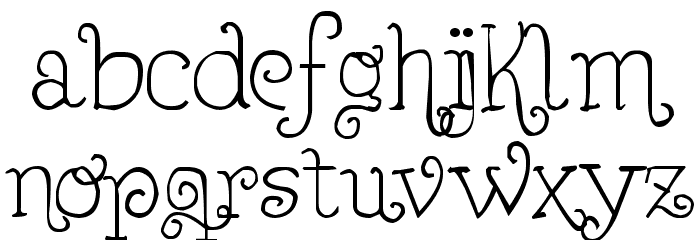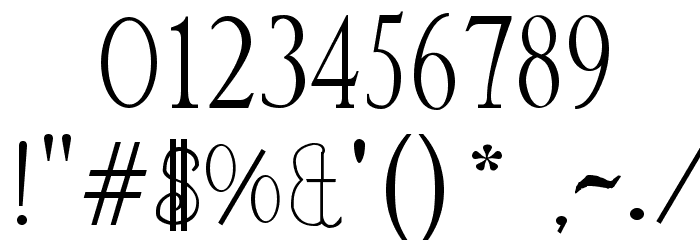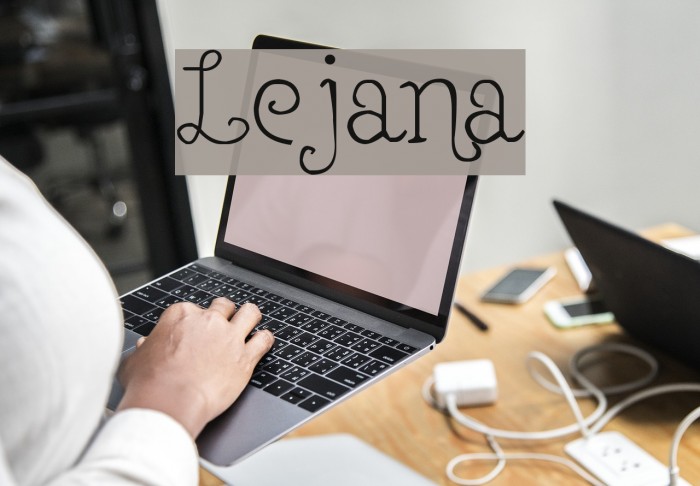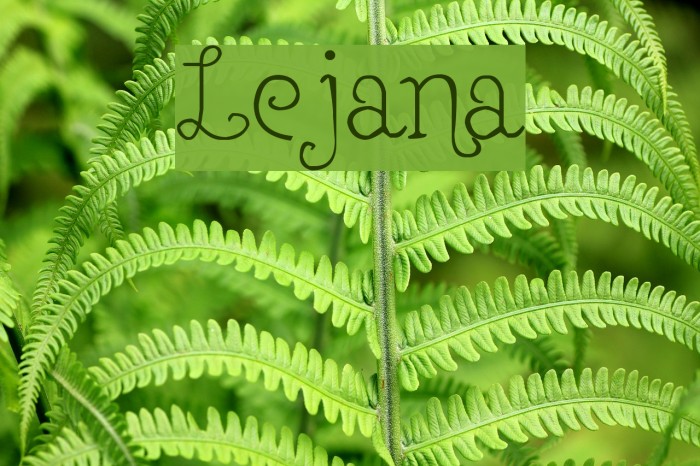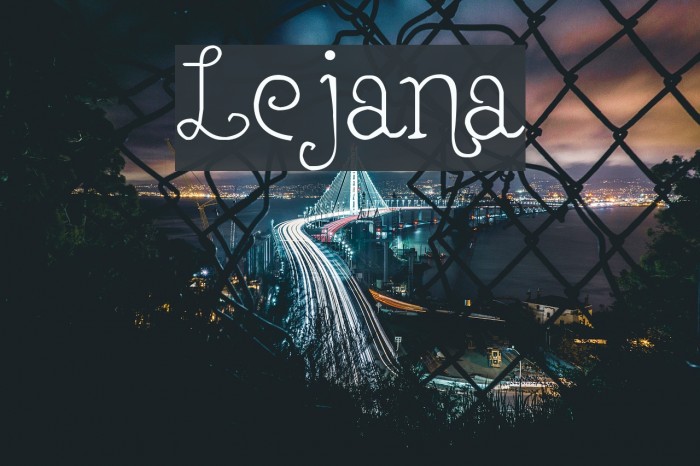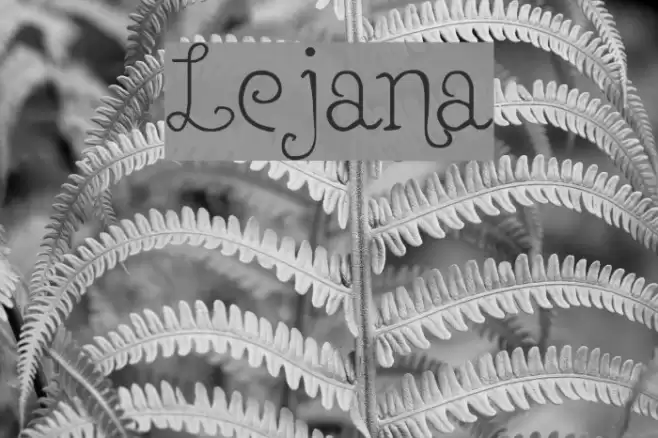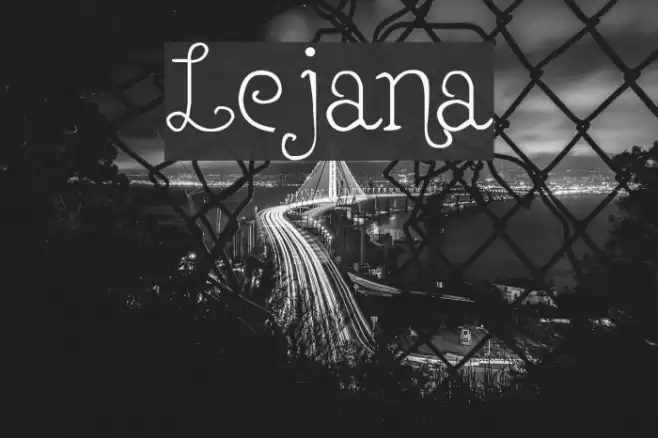
Lejana Font
This font features an elegant and whimsical design, characterized by its playful curls and swirls at the ends of the strokes. The uppercase letters exhibit a unique blend of classic serif elements with decorative flourishes, giving them a distinctive and artistic appearance. The lowercase letters maintain a similar style, with some characters incorporating loops and curls that add to the font's charm. The numerals are bold and clear, maintaining readability while still fitting the overall decorative theme. Special characters are creatively designed, enhancing the font's versatility for various uses.
A whimsical and decorative font with playful curls and elegant flourishes.
- Font: Lejana
by JuanCasco - Weight: Regular
- Proposed Projects: Ideal for wedding invitations, greeting cards, branding for creative businesses, and decorative posters.
- Use Case: Headlines, Logos, Invitations